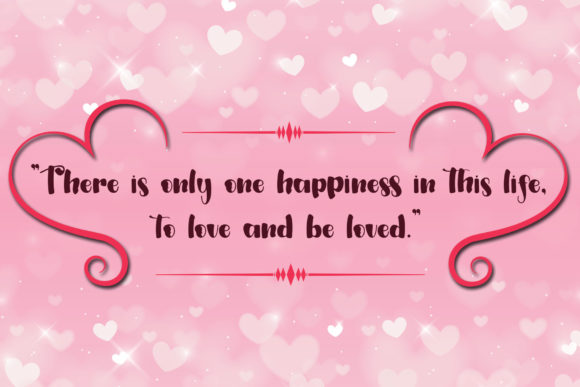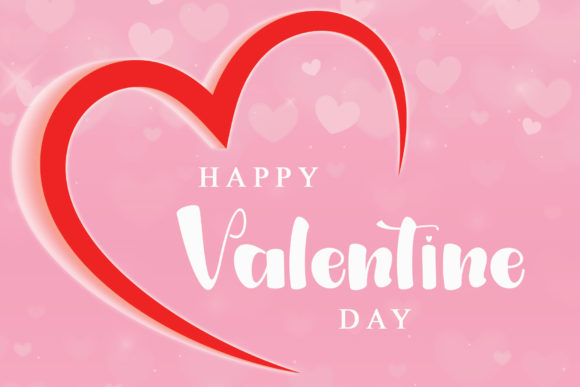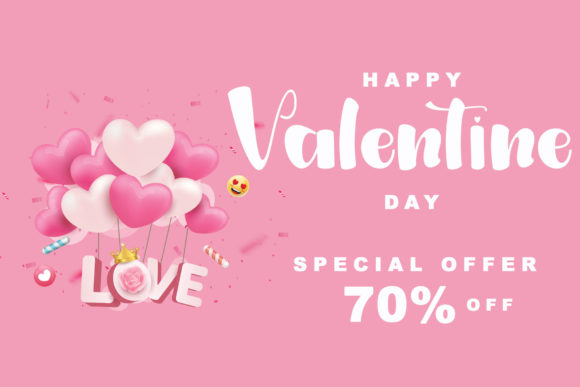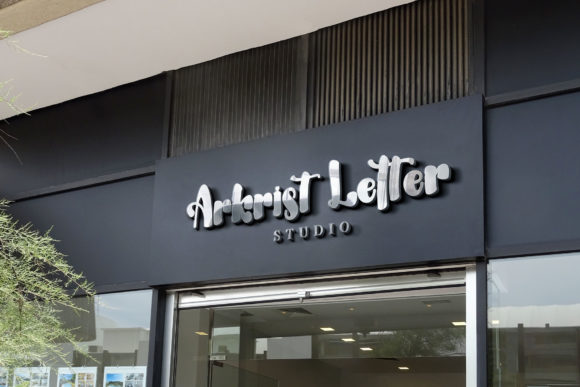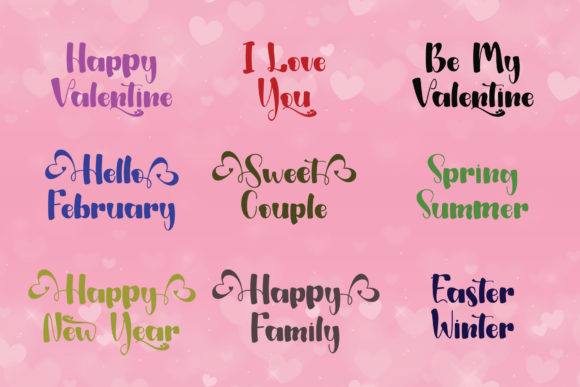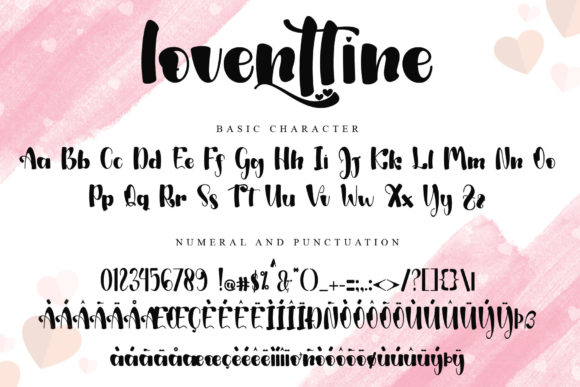
Introduction to Loventtine Font
Have you ever found the perfect font to express your feelings, only to have it fall flat on the page? I know I have. But what if I told you there’s a font that’s specifically designed to capture the essence of love and romance? Meet Loventtine Font, a modern handwritten font that’s perfect for any love-related design project.
Whether you’re working on a Valentine’s Day card, a wedding invitation, or a romantic poster, Loventtine Font is sure to add a touch of elegance and sophistication to your design. Its high-quality glyphs and swashes make it a valuable resource for designers looking to create something truly special. With its transparent background and free download option, you can easily incorporate this font into your creative project and bring your vision to life.
So why settle for a generic font when you can have a font that’s designed to make your heart skip a beat? Loventtine Font is the perfect addition to any design arsenal, and with its PUA encoding, you can access all of its glyphs and swashes with ease.
Key Features of Loventtine Font
- High-quality design resource for creative projects, offering a unique and elegant style.
- Designed with a modern aesthetic, making it an ideal choice for contemporary design projects.
Honest Review: Loventtine Font
As a designer, I’m always on the lookout for high-quality design resources to elevate my creative projects. The Loventtine Font caught my attention, and I’m excited to share my thoughts on it.
- ✨ Beautiful, elegant script design that’s perfect for romantic and whimsical projects.
- ⚠️ Limited font combinations and pairing options, which can make it challenging to create cohesive designs.
Overall, the Loventtine Font is a great addition to any designer’s toolkit, especially for creative projects that require a touch of elegance and sophistication. While it has its limitations, its high-quality design and customization options make it a worthwhile resource for designers looking to elevate their work.
Common Use Cases for Loventtine Font
The Loventtine Font is ideal for use in invitations, brochures, and other marketing materials. Its elegant design makes it perfect for creative projects that require a touch of sophistication.